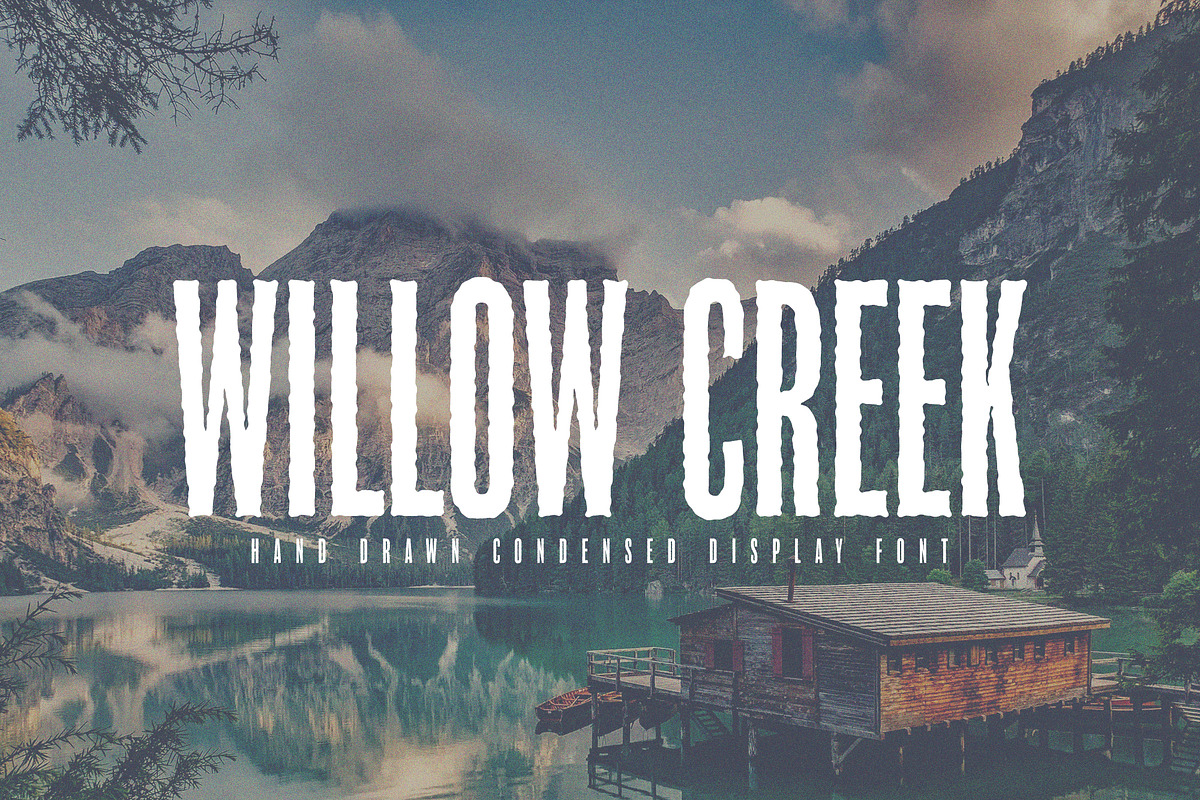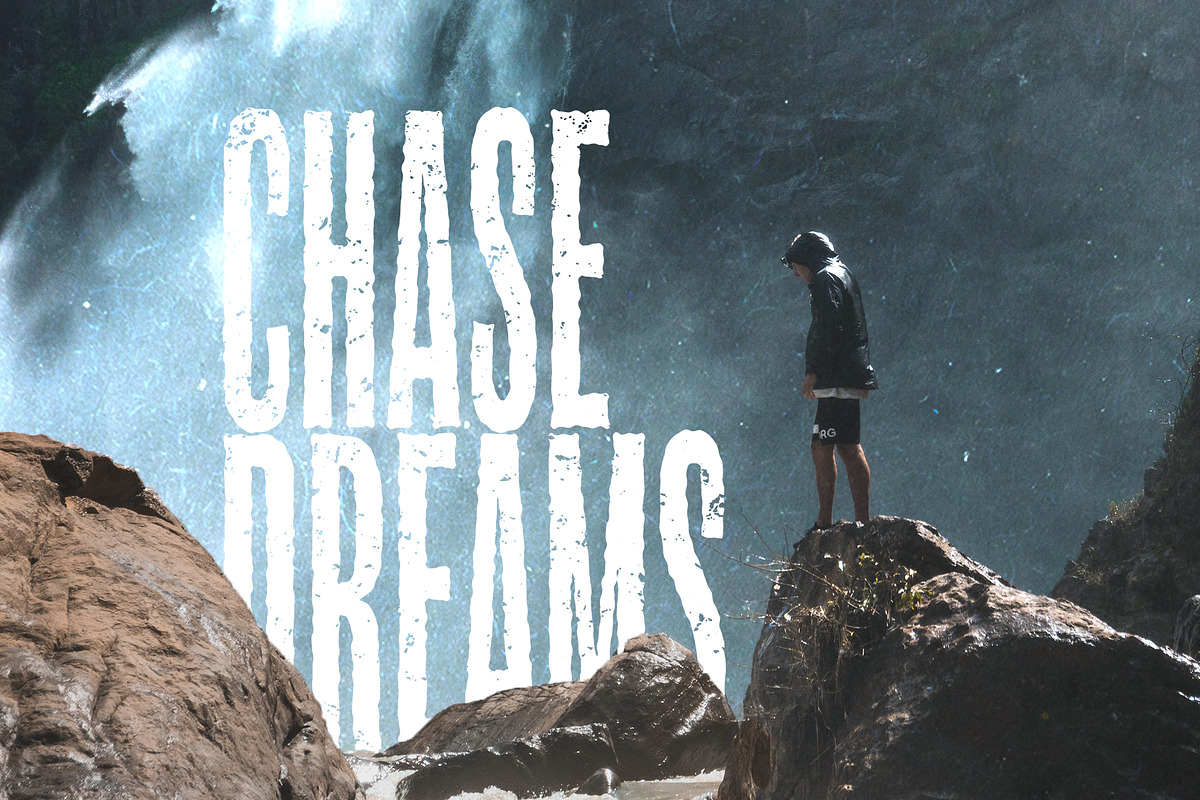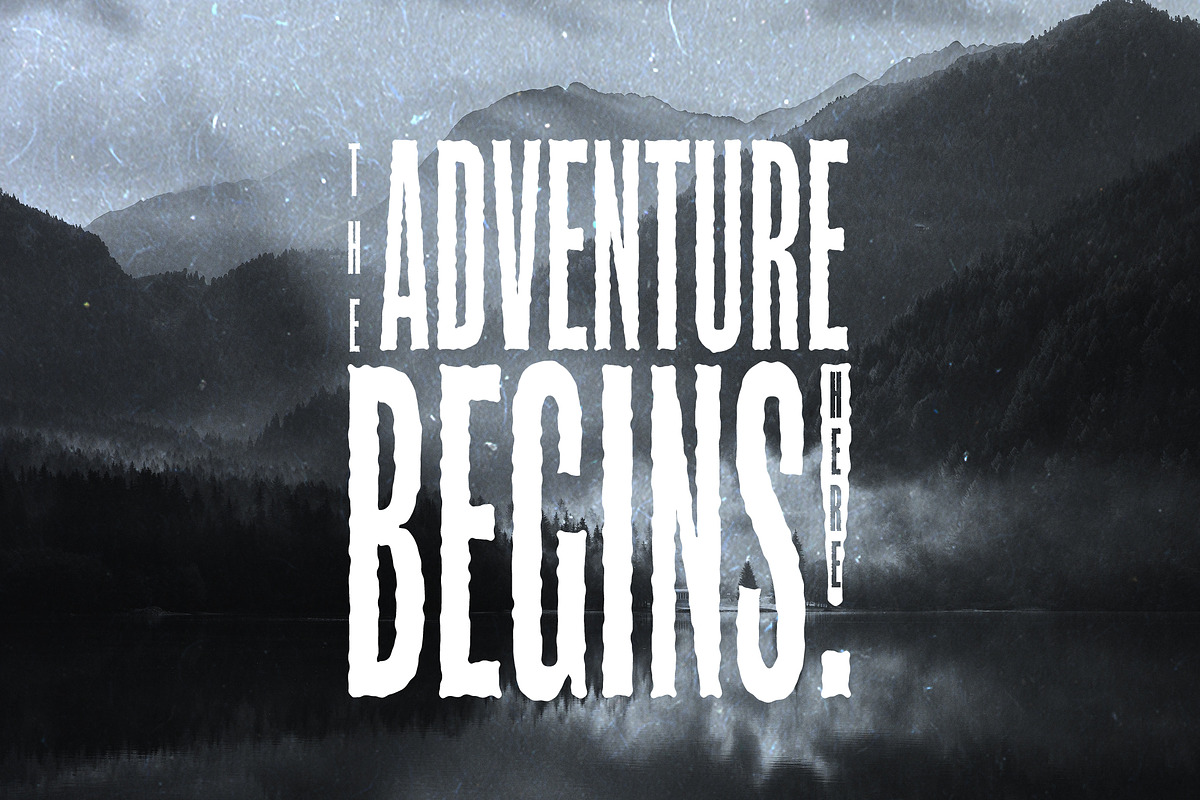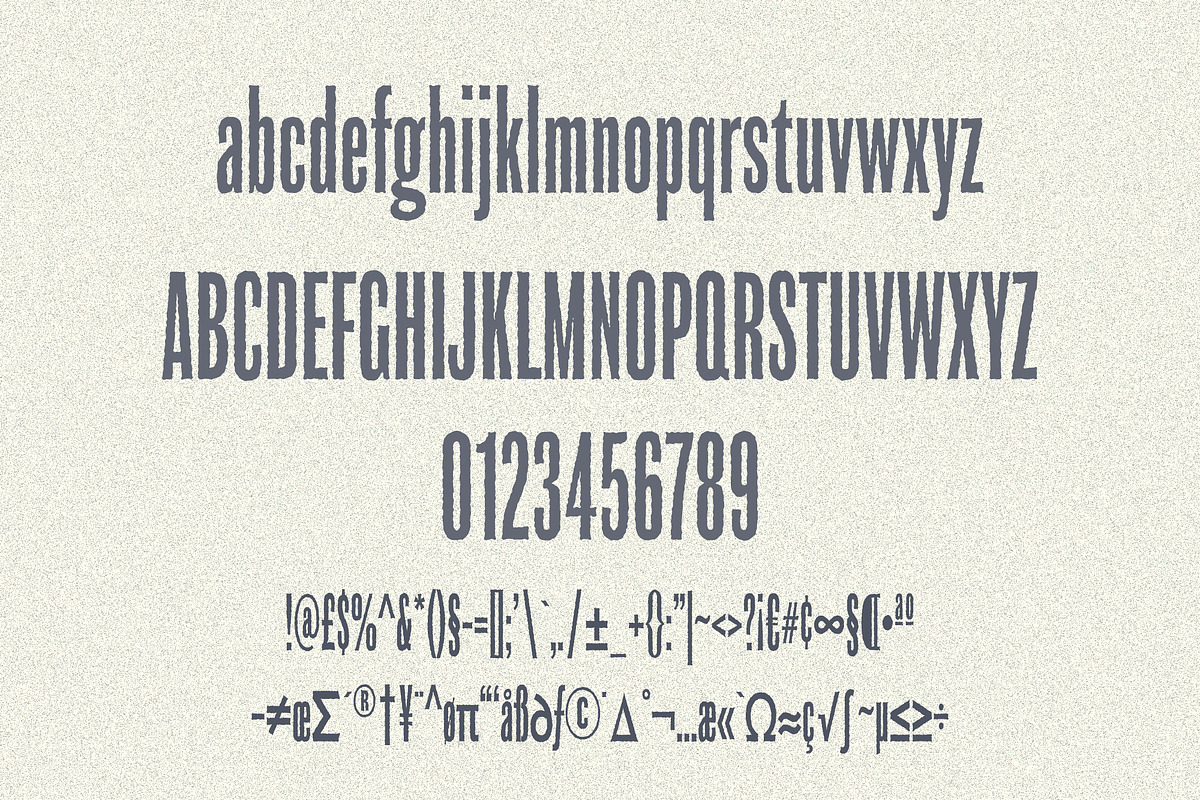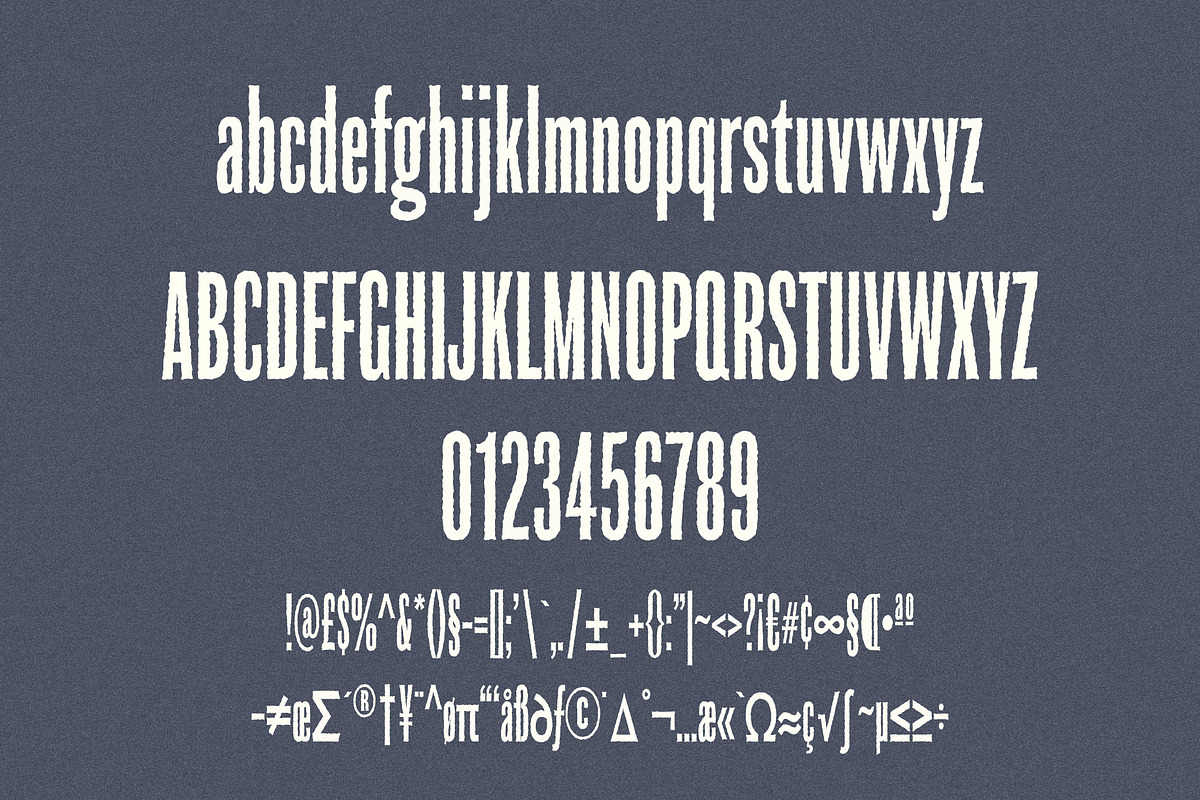
Willow Creek
Willow Creek is inspired by the American wilderness!
As with all Grallys Supply Company fonts, Willow Creek is hand drawn, digitised and then tweaked to create a unique font.
This font includes lowercase, uppercase, numbers and a large amount of symbols. Designed to give a rugged edge to your logo, web project, poster or other artwork.
Comes complete with a large amount of glyphs. This font has been inspected and reviewed numerously to ensure high quality kerning, line and letter spacing.